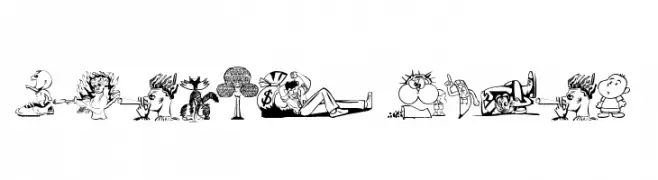
Cartoon face icons as font glyphs for decorative use.
Cartoon face icon font with whimsical, illustrated characters.
A whimsical decorative font with cartoon-like characters and scenes.